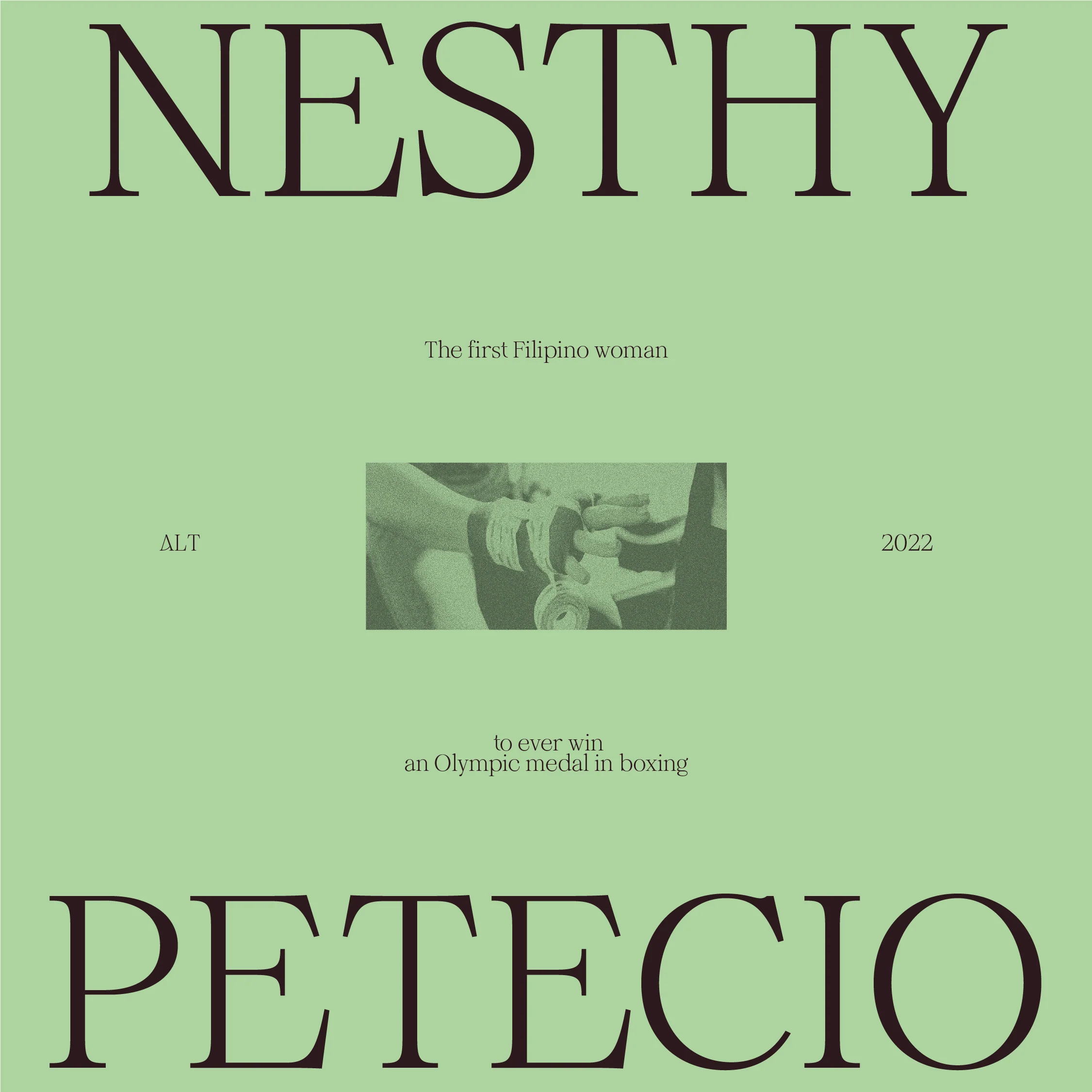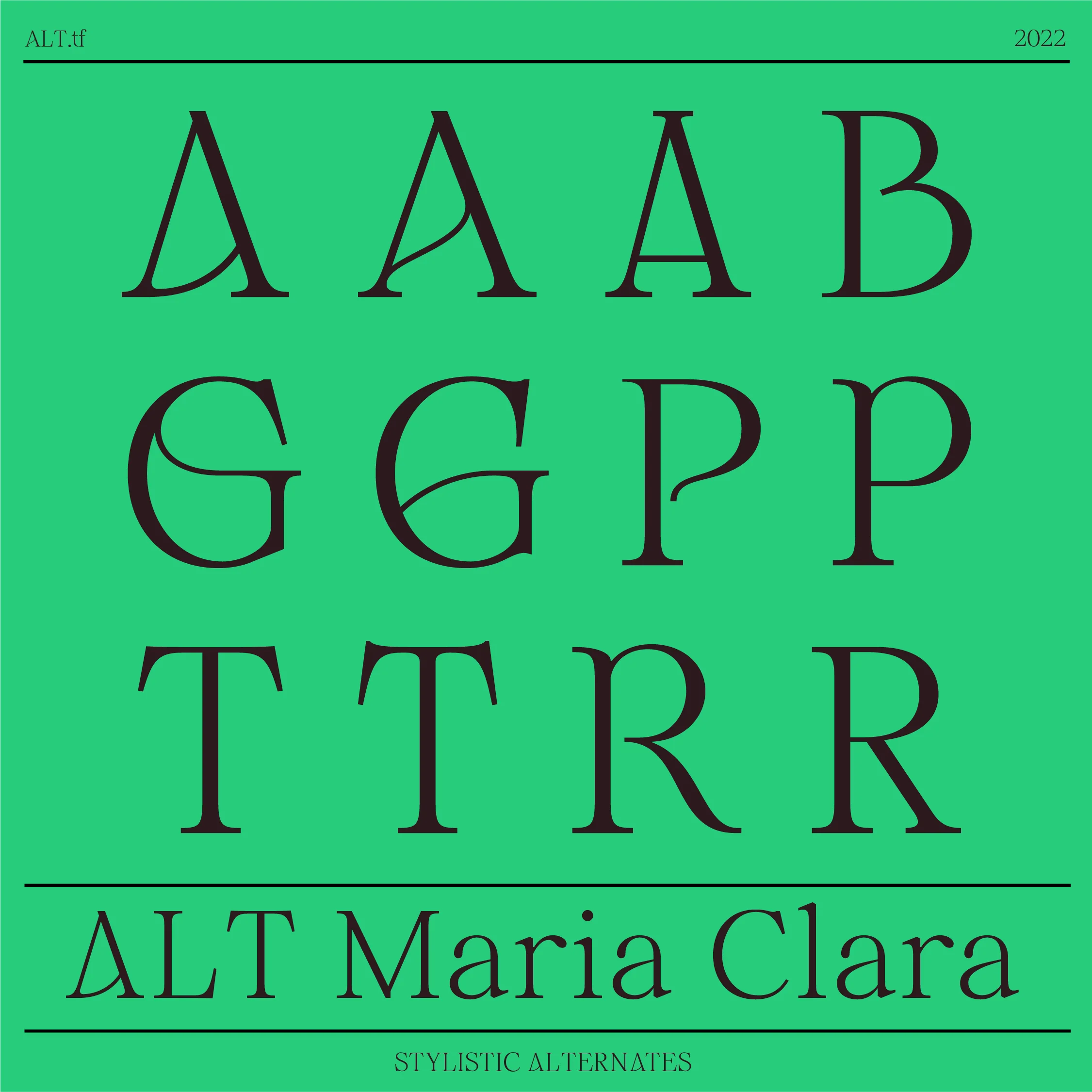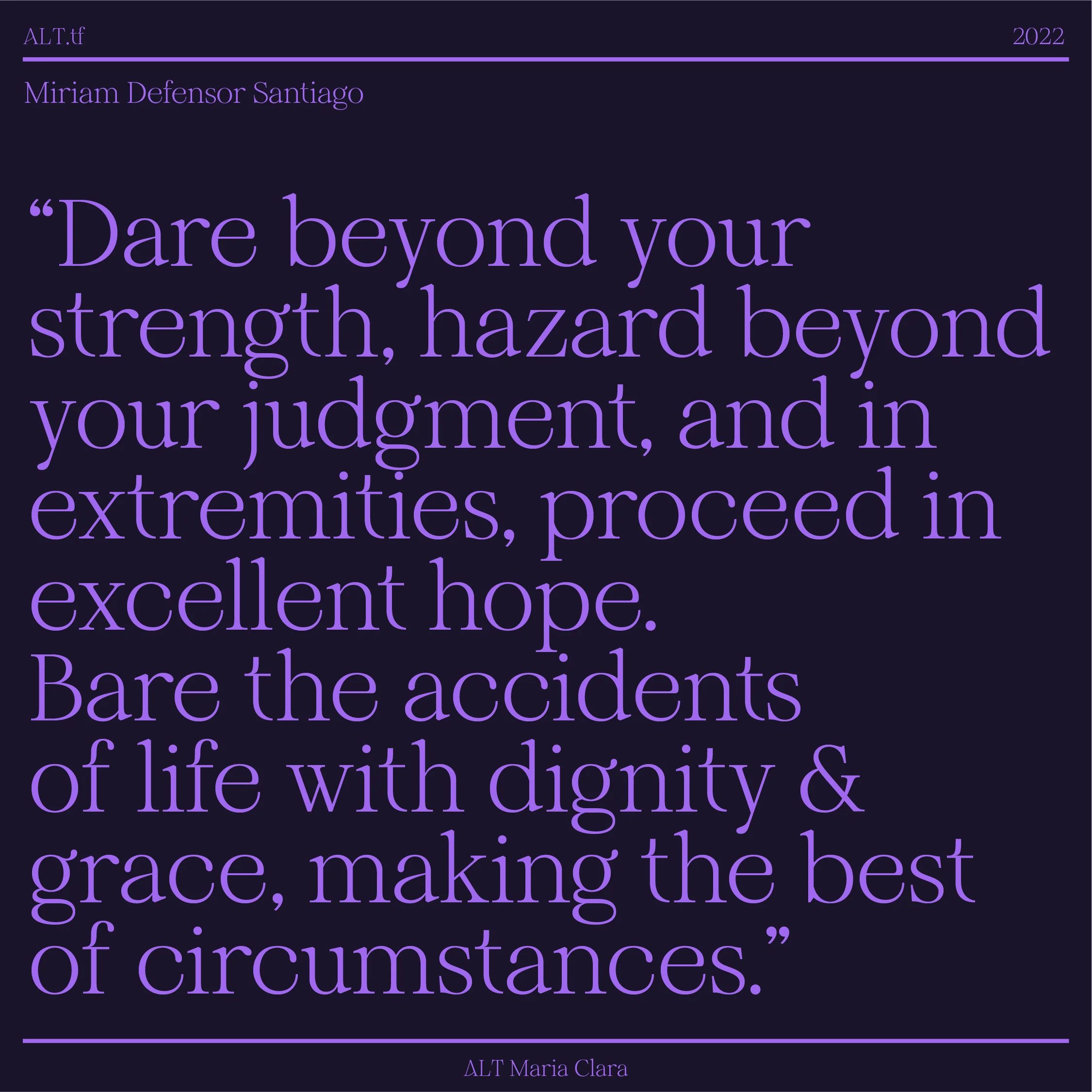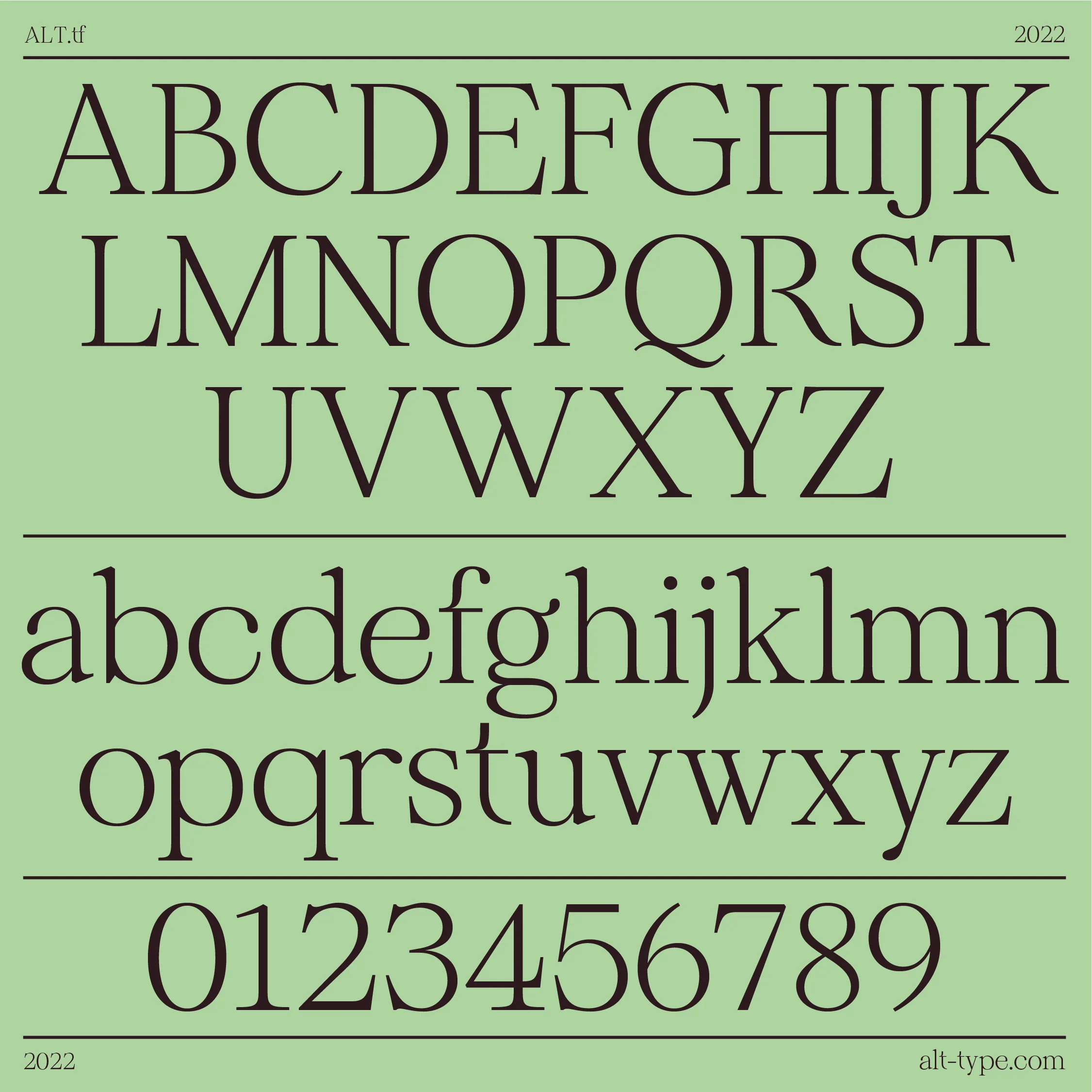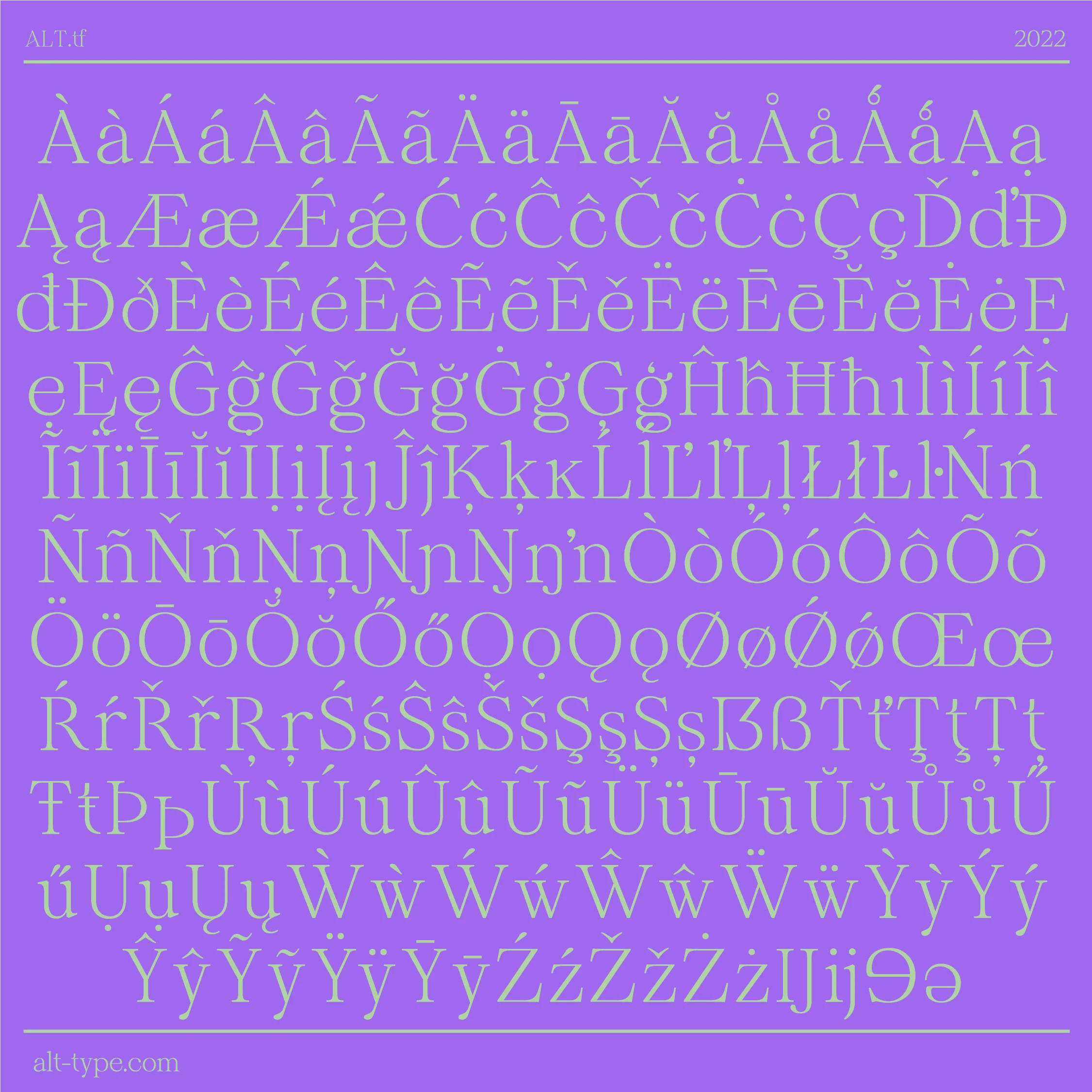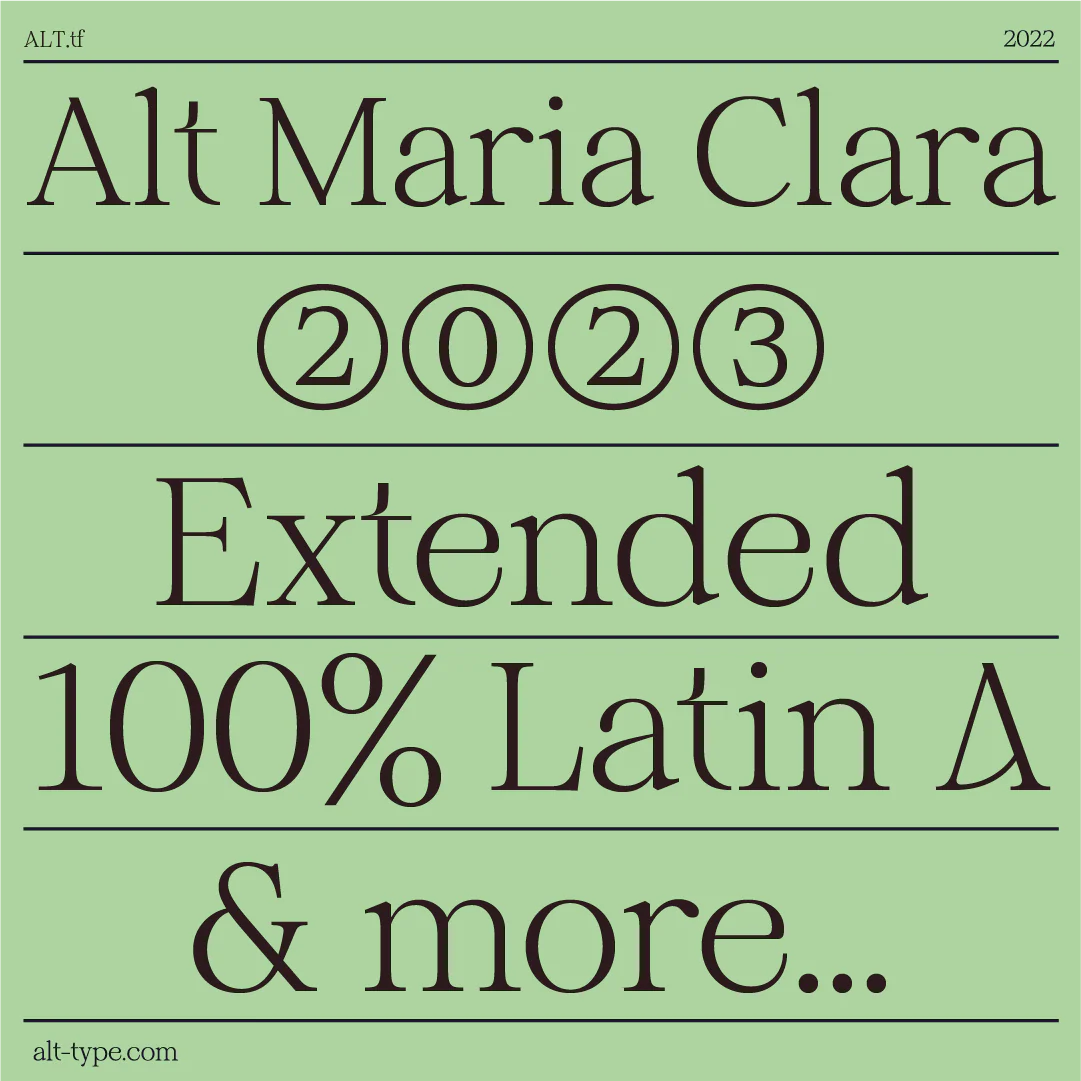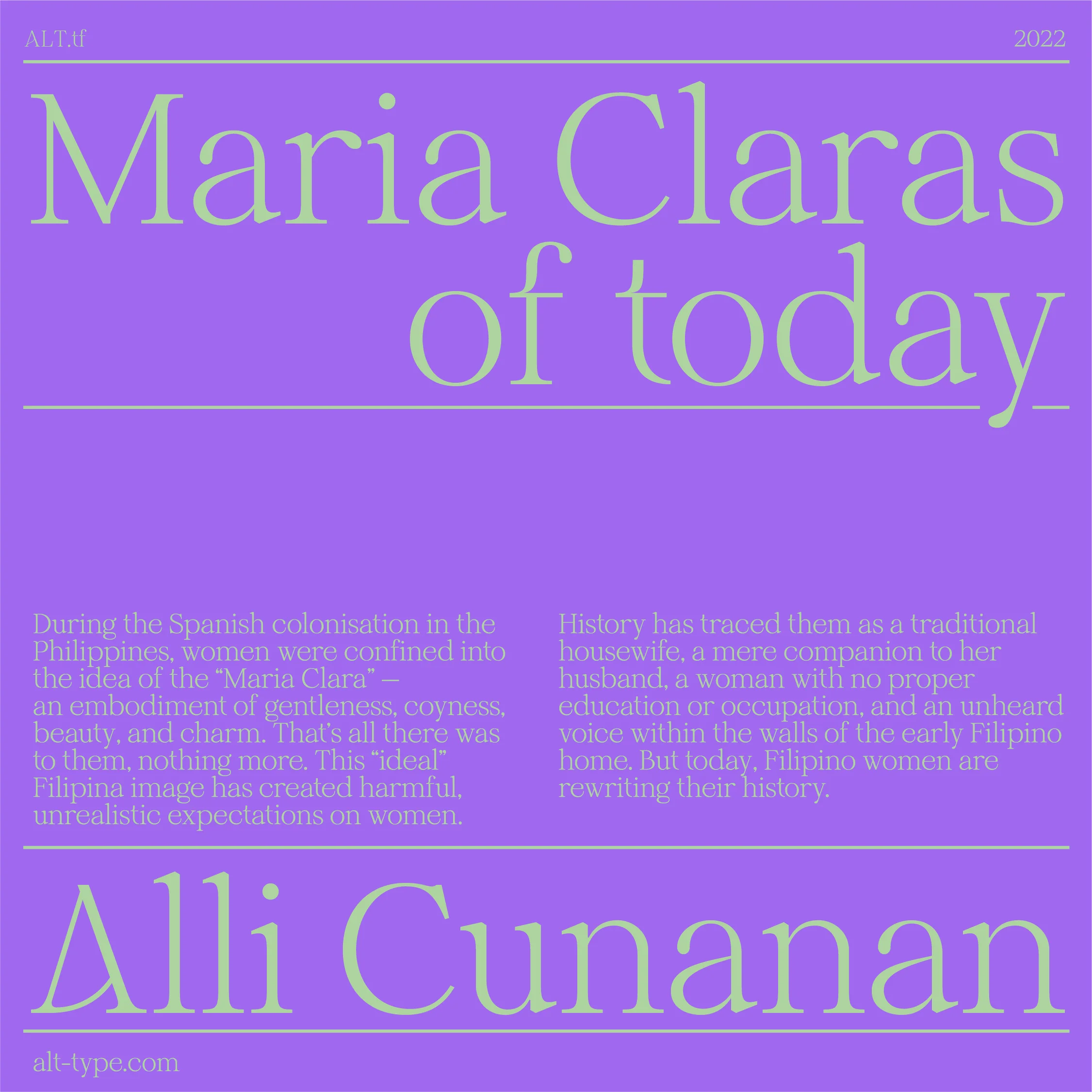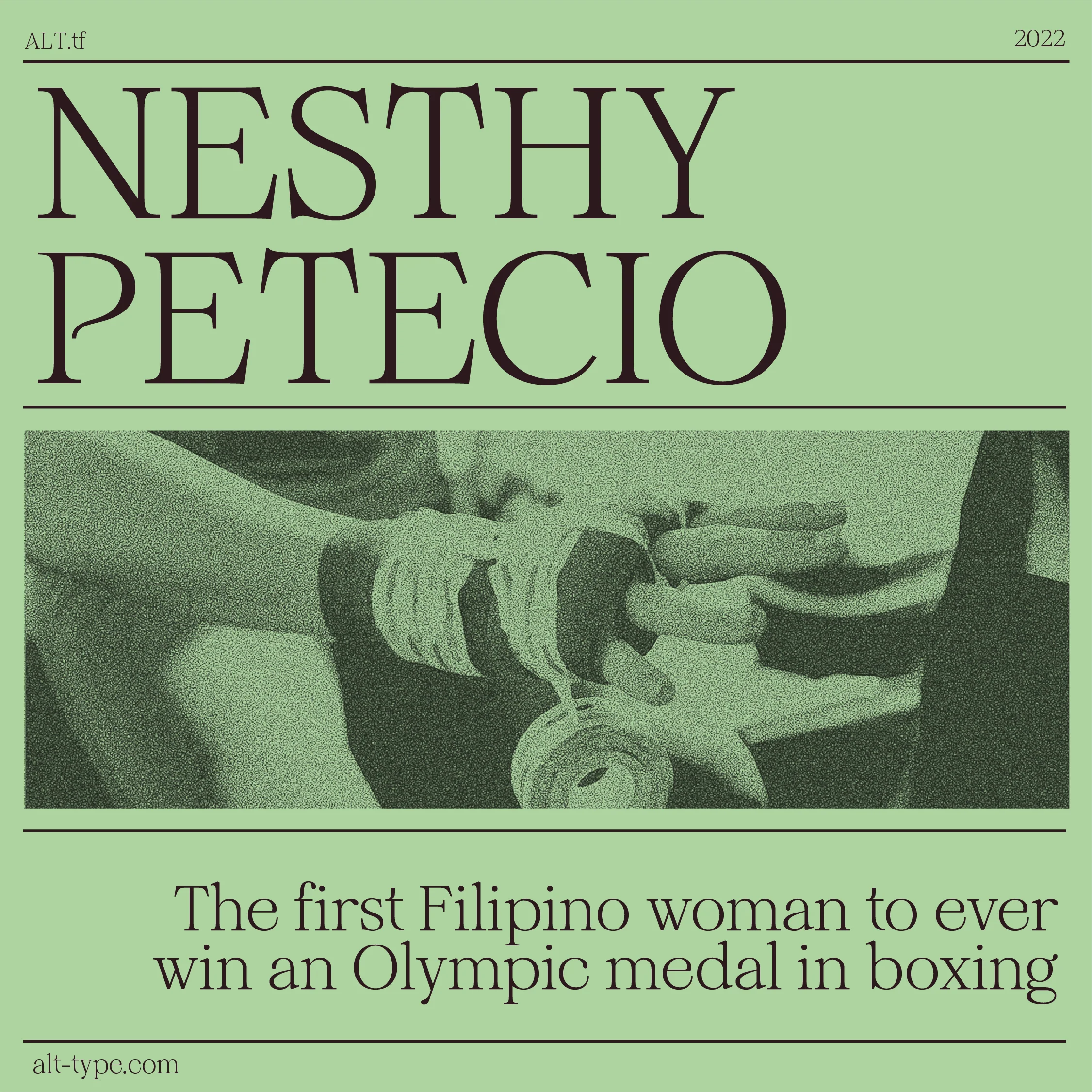
ALT Maria Clara
ALT MariaClara is a font dedicated to the strong, confident, brave Filipina women who are breaking away from stereotypes and owning their identities. Named after Maria Clara, a fictional Filipina character who became a colonial figure—an embodiment of submissive, conservative demureness, a myth that allowed Spanish colonisers to continue to subjugate Filipina women—ALT MariaClara flips the narrative.
Drawing inspiration from the visual history of the Philippines, type designer Alli Cunanan incorporates sharp, intricate details.
ALT MariaClara is a refined, striking display font built on a story of reclamation and empowerment.
ALT MariaClara is a font dedicated to the strong, confident, brave Filipina women who are breaking away from stereotypes and owning their identities. Named after Maria Clara, a fictional Filipina character who became a colonial figure—an embodiment of submissive, conservative demureness, a myth that allowed Spanish colonisers to continue to subjugate Filipina women—ALT MariaClara flips the narrative.
Drawing inspiration from the visual history of the Philippines, type designer Alli Cunanan incorporates sharp, intricate details.
ALT MariaClara is a refined, striking display font built on a story of reclamation and empowerment.